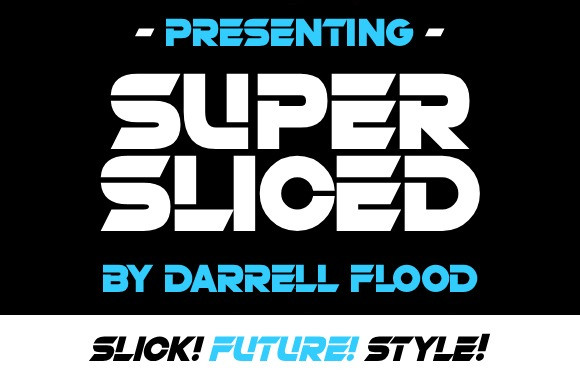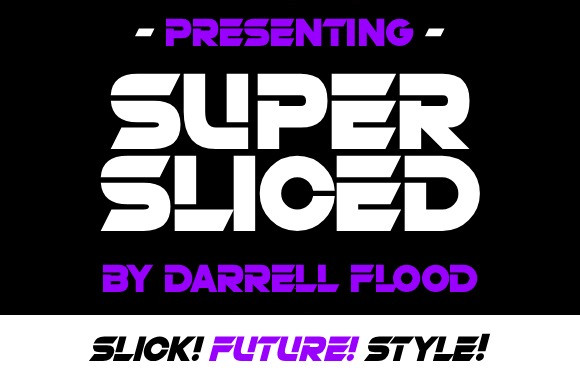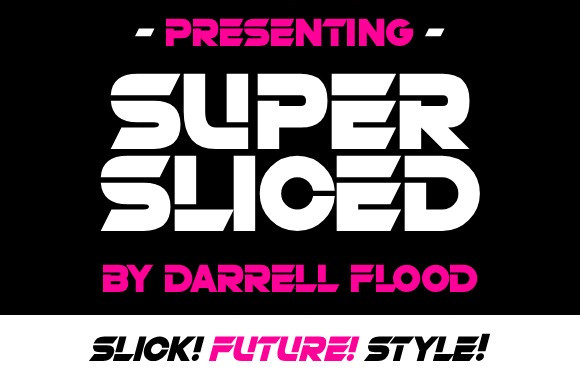
Super Sliced Font
Super Sliced Font is a bold, modern font in a high impact edgy style! perfect for futuristic themes, high tech presentations and exploring alien worlds!